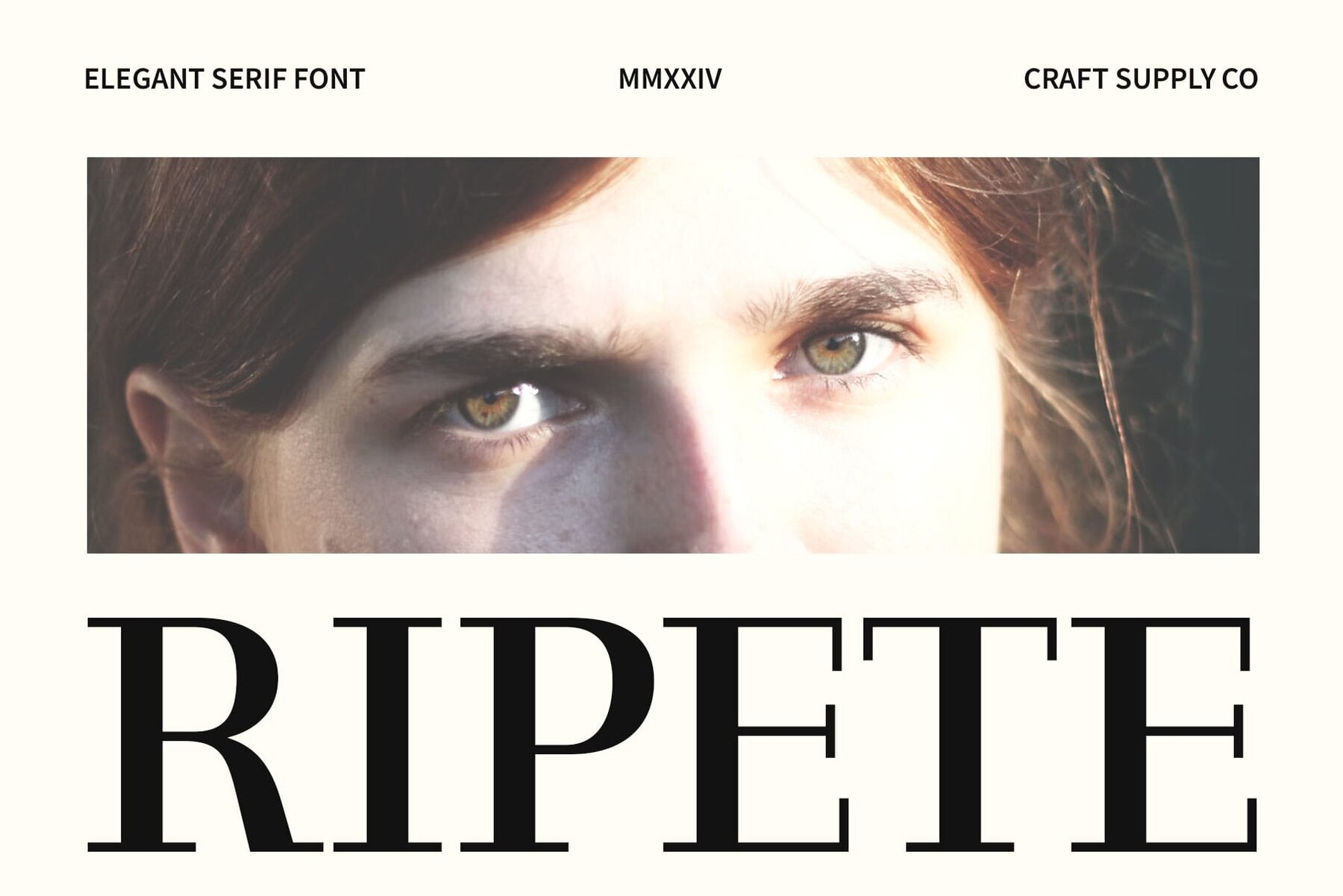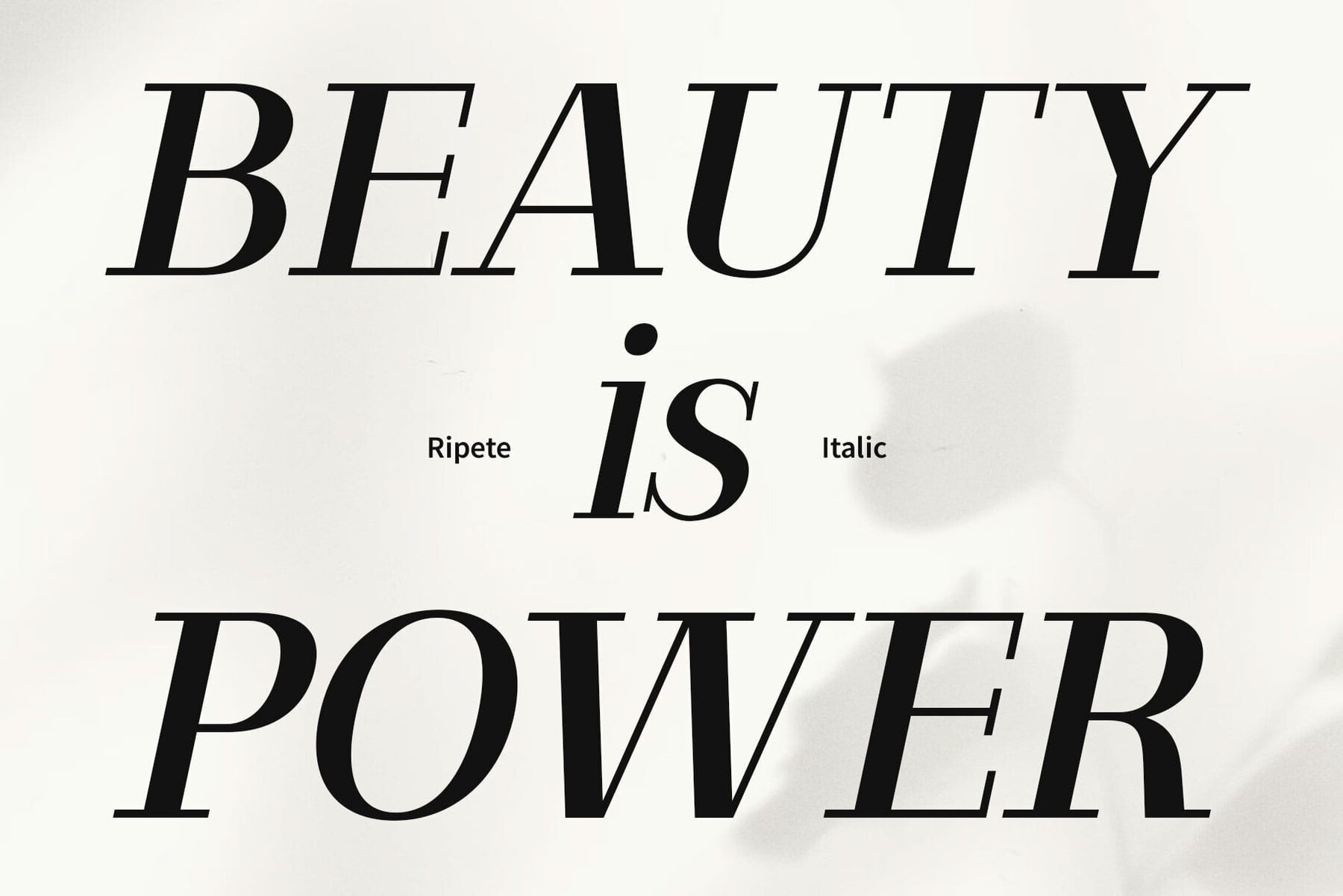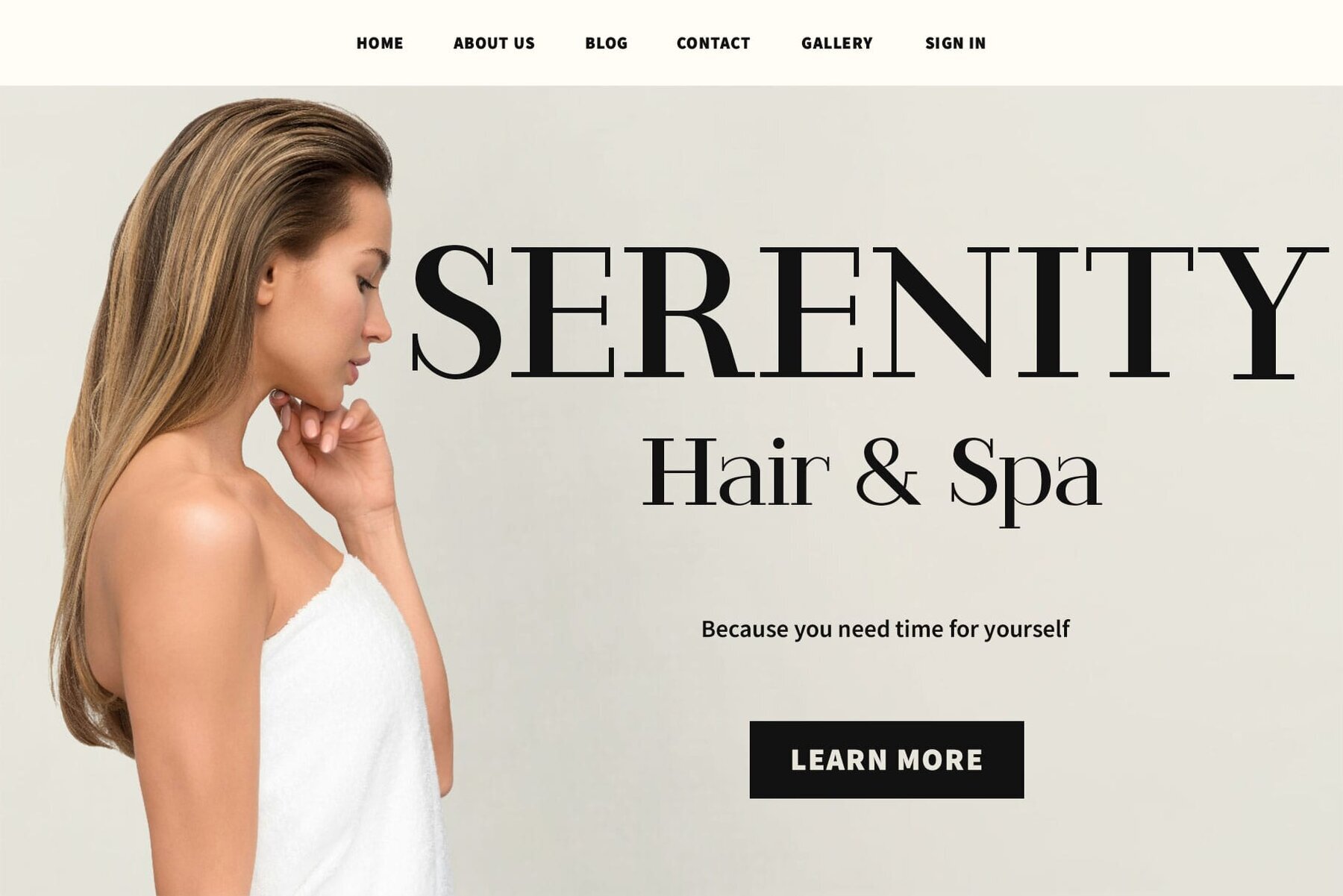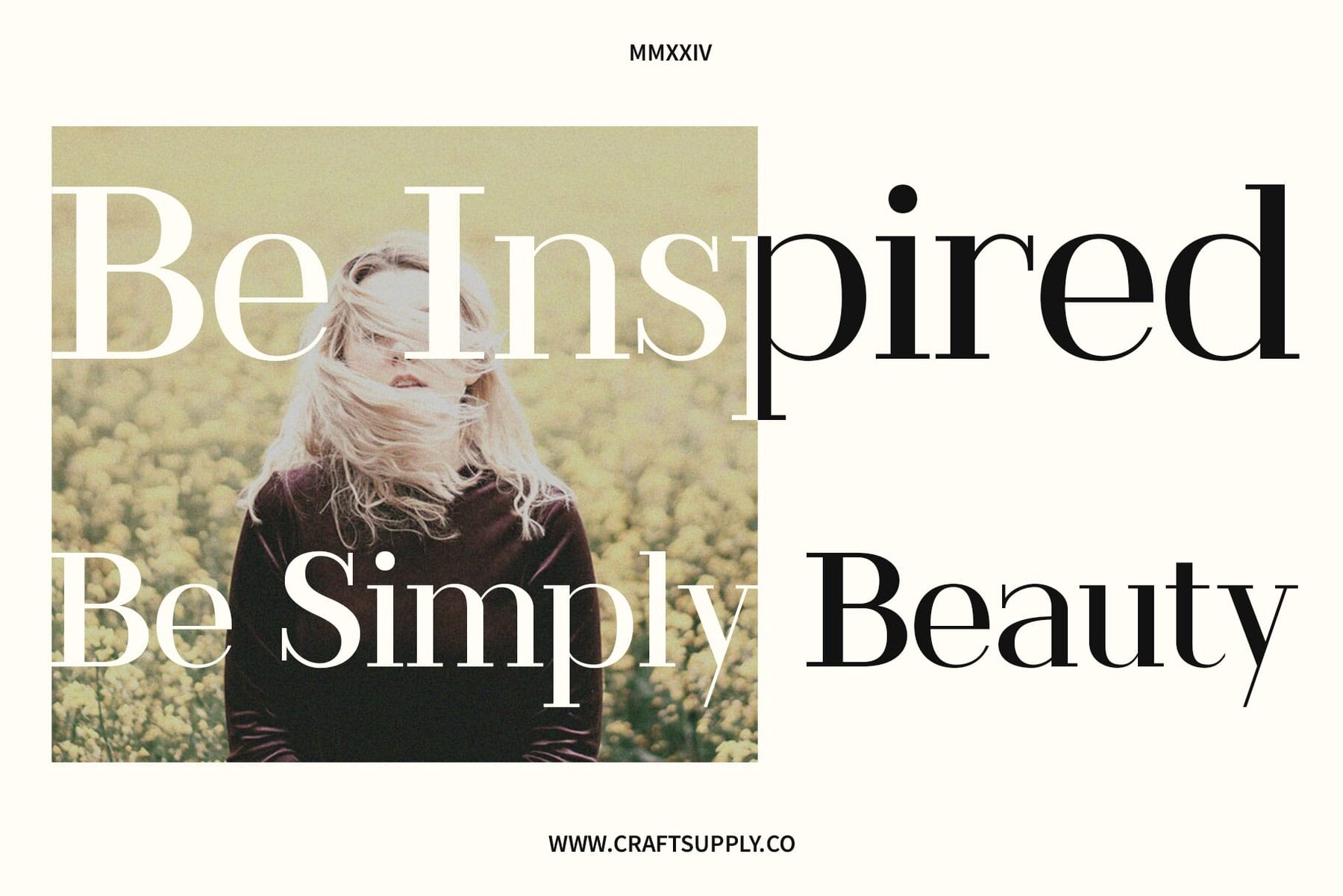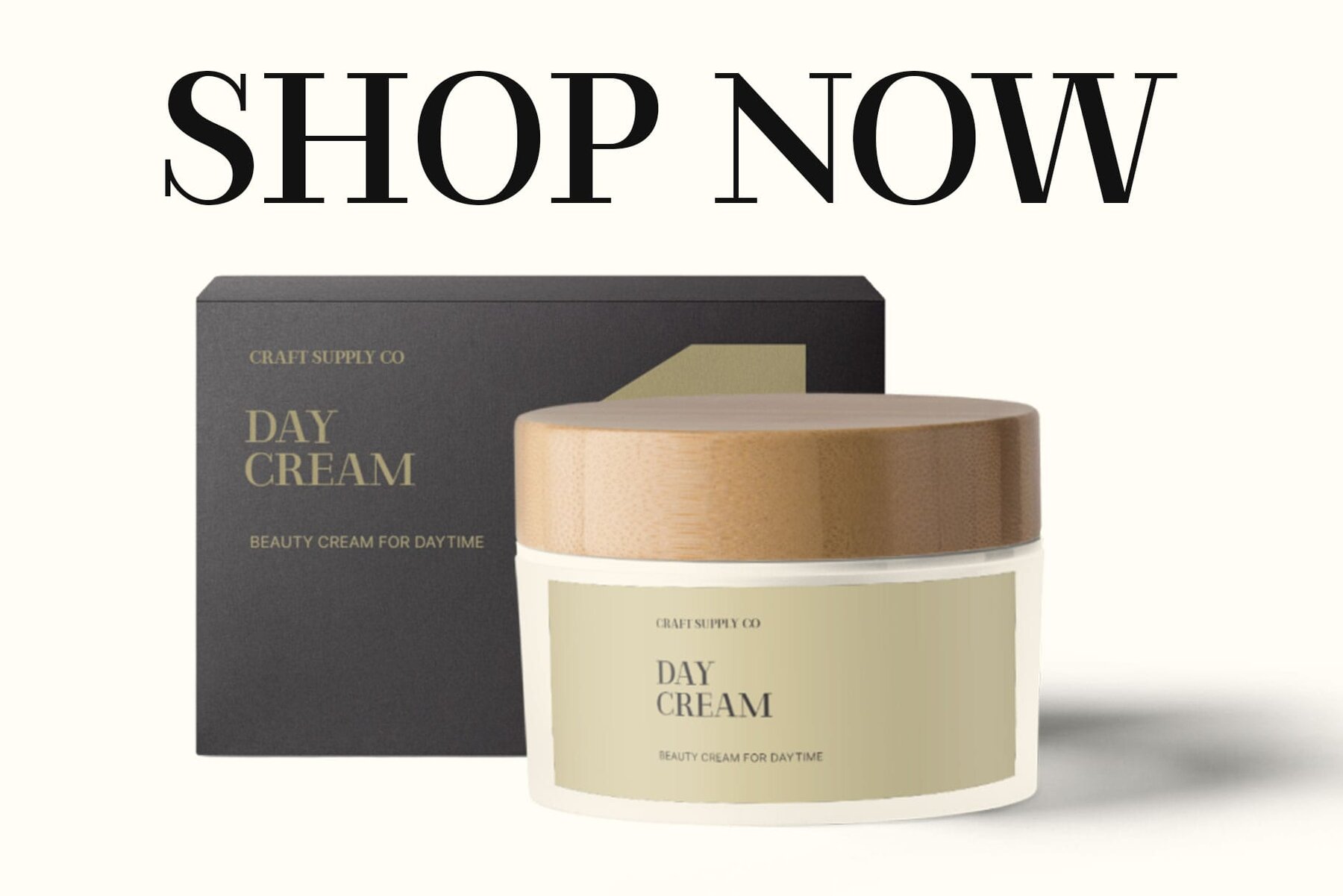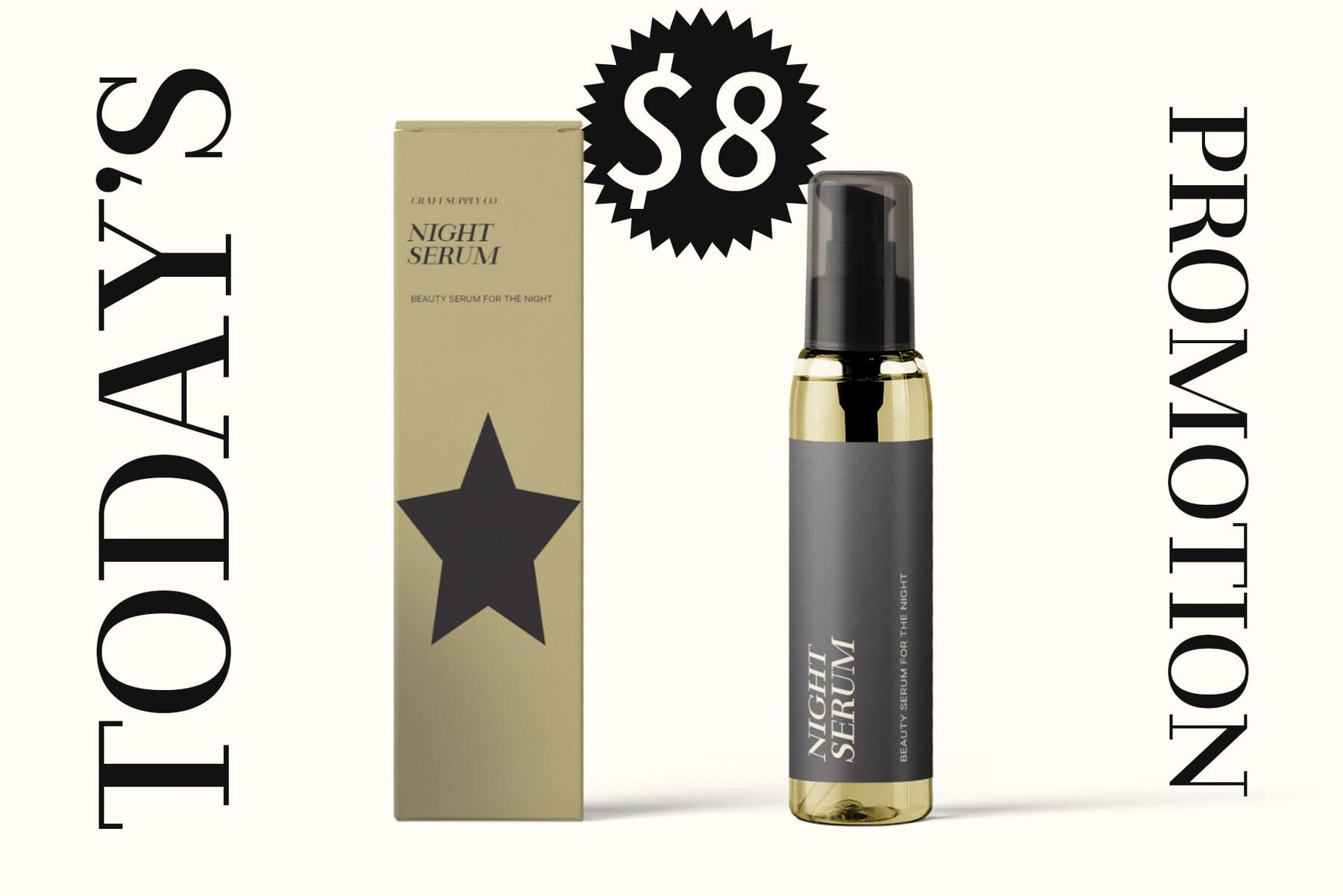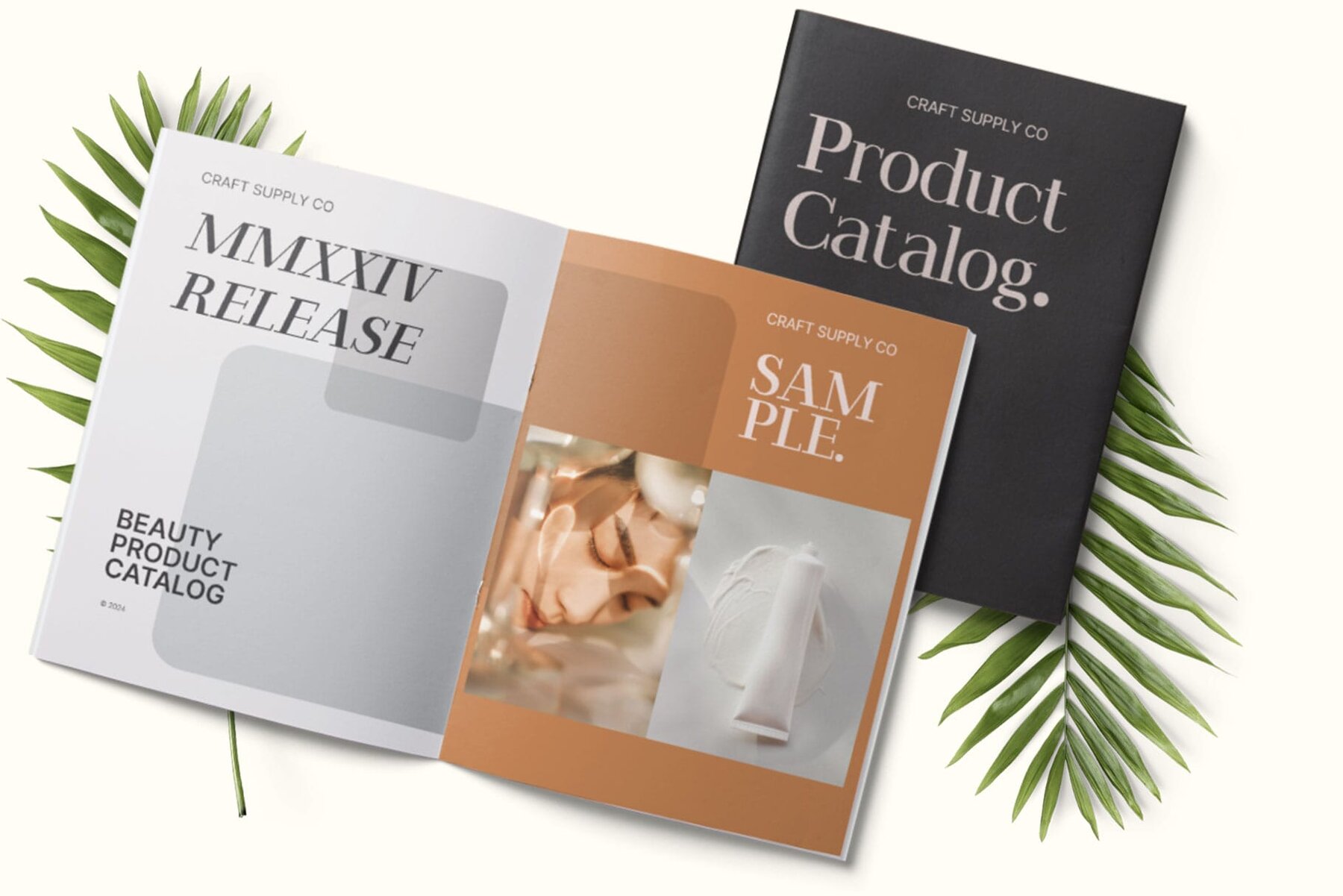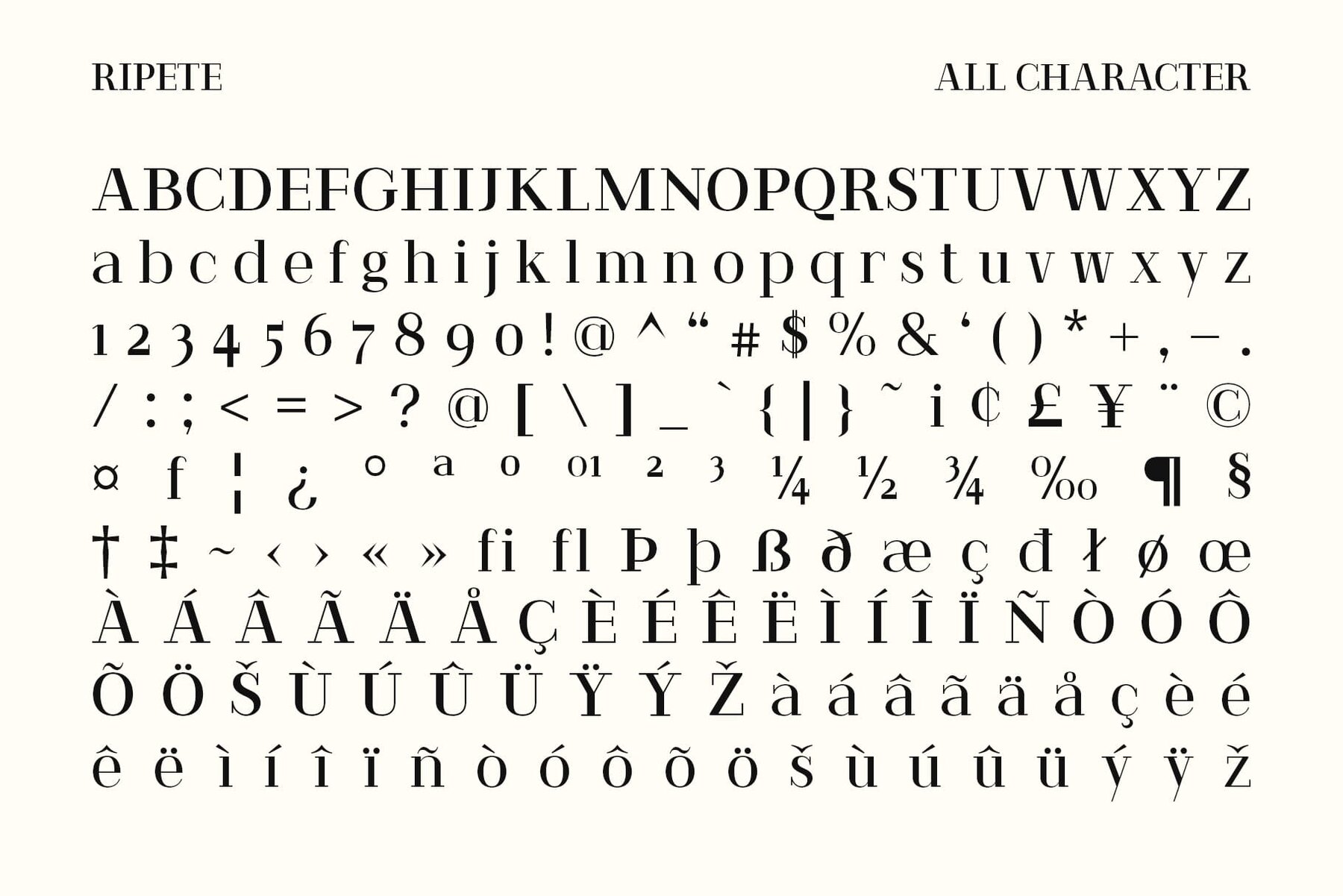
Ripete Font
This serif font is characterized by its transitional style, featuring a high contrast between thick and thin strokes. It conveys a sense of elegance and authority, making it a perfect choice for upscale branding, editorial design, and formal documentation. The font maintains a balance between refinement and readability, ensuring it stands out while remaining legible.